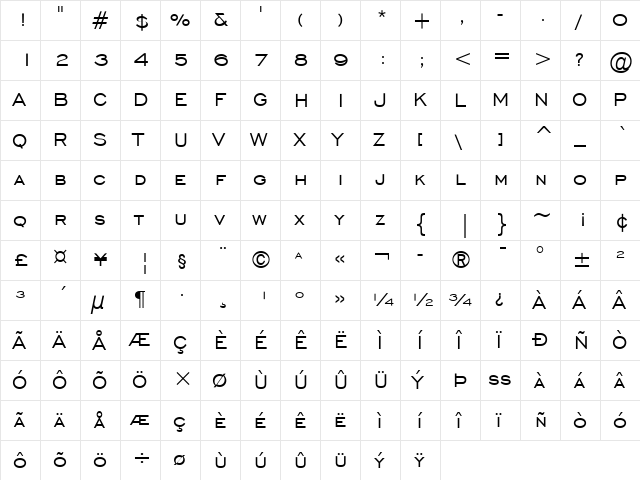
Engravers' Gothic Regular
Design Context for Engravers' Gothic Typeface
Engravers' Gothic has the quiet confidence of well-executed sans-serif typography: versatile, unobtrusive, and dependable at any size.
Font Pairing: Works well alongside a characterful serif or display font that can carry the expressive load while Engravers' Gothic handles the functional copy.
Pro Tip: Pair Engravers' Gothic with a display or serif font for headlines — its neutral character makes it an excellent supporting player in complex typographic systems.